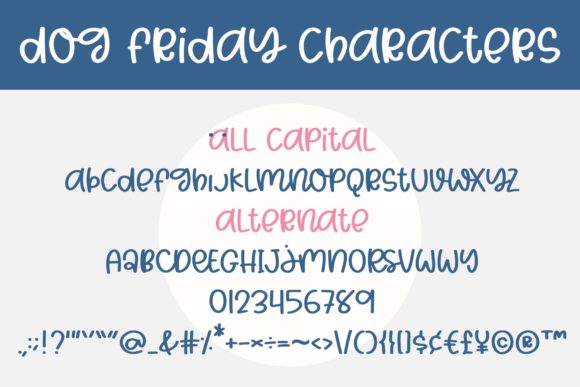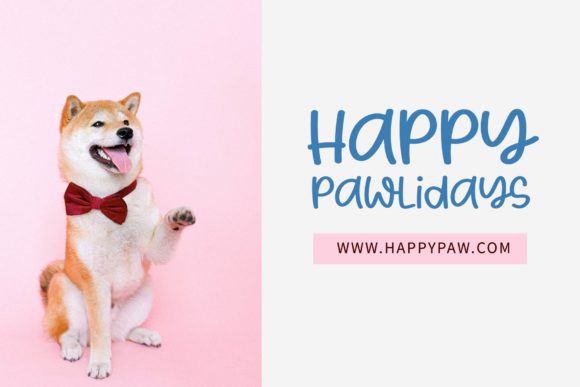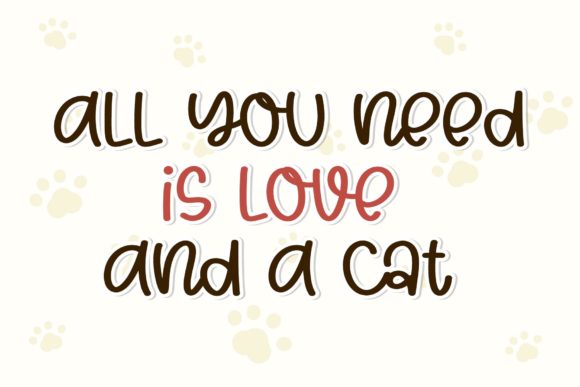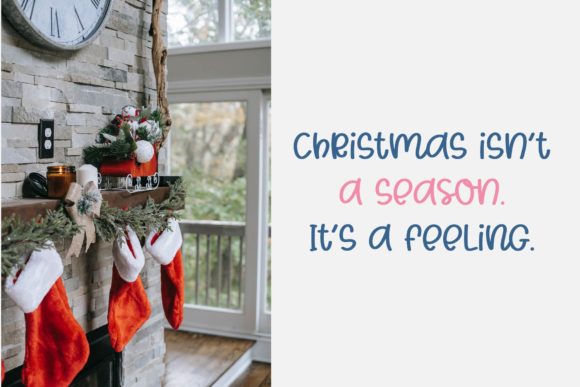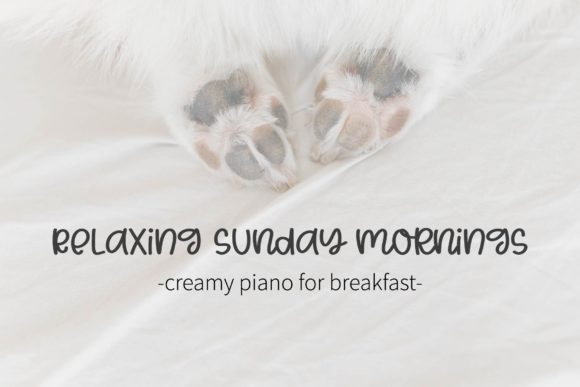
Discover the Playful Charm of Dog Friday Font: Elevate Your Designs with a Quirky Handwritten Style
Are you tired of using the same old fonts in your designs? Look no further than the Dog Friday Font, a quirky and fun handwritten font that’s sure to add a touch of personality to your projects. With its natural and unique style, Dog Friday Font is incredibly versatile and can be used in a wide range of designs, from playful crafts to creative marketing materials.
The Unique Characteristics of Dog Friday Font
Dog Friday Font is a one-of-a-kind handwritten font that boasts a charming, informal style. Its natural, effortless look makes it perfect for designs that require a personal touch. The font’s unique characteristics include:
- Handwritten style: Dog Friday Font is a genuine handwritten font, crafted to resemble the imperfections and quirks of human handwriting.
- Natural and unique: The font’s natural style makes it stand out from more traditional fonts, adding a touch of whimsy to your designs.
- Highly versatile: Dog Friday Font can be used in a wide range of designs, from fun and playful to creative and imaginative.
Endless Design Possibilities with Dog Friday Font
The only limit to using Dog Friday Font is your imagination! This incredibly versatile font can be used in a multitude of designs, including:
- Crafting projects: Add a personal touch to your crafting projects, such as handmade cards, gift tags, and scrapbooking pages.
- Marketing materials: Use Dog Friday Font to create eye-catching marketing materials, such as flyers, brochures, and social media graphics.
- Digital designs: Incorporate Dog Friday Font into your digital designs, including website headers, email newsletters, and social media posts.
- Stationery and invitations: Add a touch of whimsy to your stationery and invitations, making them stand out from the crowd.
Why Choose Dog Friday Font?
With so many fonts available, why choose Dog Friday Font? Here are just a few reasons why designers and crafters love this quirky handwritten font:
- Unique and eye-catching: Dog Friday Font is a one-of-a-kind font that will make your designs stand out from the crowd.
- Easy to read: Despite its playful style, Dog Friday Font is highly legible, making it perfect for designs that require a clear message.
- Customizable: Experiment with different colors, sizes, and styles to make Dog Friday Font your own.
Tips for Using Dog Friday Font Effectively
To get the most out of Dog Friday Font, here are a few tips to keep in mind:
- Use it sparingly: Balance Dog Friday Font with more traditional fonts to create visual interest and hierarchy.
- Experiment with colors: Try pairing Dog Friday Font with bold, bright colors to add an extra touch of whimsy to your designs.
- Mix and match: Combine Dog Friday Font with other fonts and design elements to create a unique and eye-catching design.
Dog Friday Font is a quirky and fun handwritten font that’s perfect for designers and crafters looking to add a touch of personality to their projects. With its natural and unique style, this versatile font can be used in a wide range of designs, from playful crafts to creative marketing materials. So why settle for boring, generic fonts when you can add a dash of whimsy with Dog Friday Font? Let your imagination run wild and discover the endless design possibilities with this charming font!